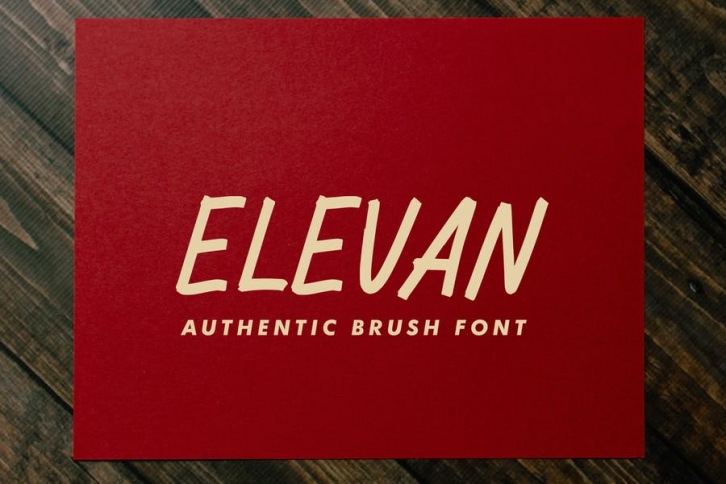
Elevan Brush Font is a rough brush font with a clear style and good flow.
This font is great for your next creative project such as Logotype, printed quotes, invitations, cards, product packaging, headers, Letterhead, Poster, Apparel Design, Label, and etc.